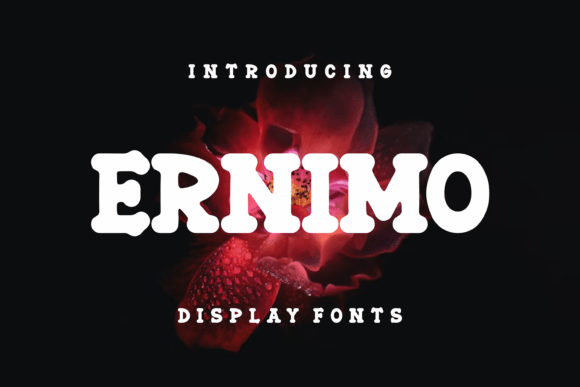
**Introducing Ernimo, the Font That Radiates Joy and Excitement.** Prepare to embark on a typographic adventure with Ernimo, an irresistible display font that exudes pure delight and infectious enthusiasm. Its captivating curves, plump boldness, and playful spirit are guaranteed to ignite a smile on your face and captivate the hearts of your audience.
**Embrace the Joyful Expressions of Ernimo.** Whether you're crafting eye-catching posters that demand attention or designing captivating fliers that spark curiosity, Ernimo is the perfect companion for your creative endeavors. Its cheerful demeanor shines through in every letterform, effortlessly conveying a sense of happiness and lightheartedness that is simply irresistible.
**A Perfect Fit for a Multitude of Creative Expressions.** Ernimo's adaptability knows no bounds. Its charming character lends itself seamlessly to a vast array of design projects, from playful game titles that evoke a sense of nostalgia to whimsical cartoon movies that transport viewers to a world of imagination. Even in the realm of sophisticated magazines, Ernimo's presence adds a touch of delight and unexpected charm.
**Crafted with Precision, Designed with Passion.** Every stroke of Ernimo has been meticulously crafted by the talented hand of lelevien, ensuring that each letterform exudes the utmost quality and attention to detail. The result is a font that not only delights the eye but also empowers designers to express their creativity with confidence and flair.